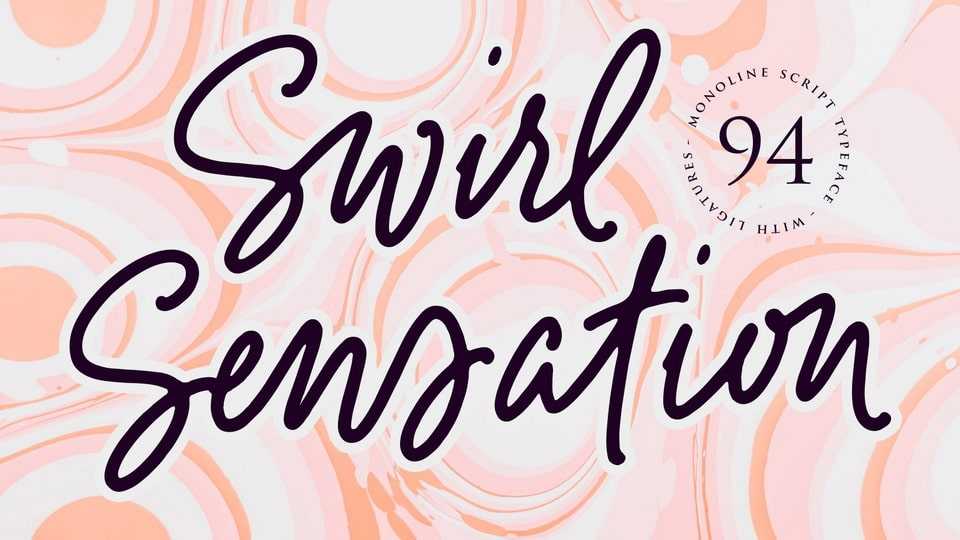
Download Swirl Sensations font, a handwritten typeface inspired by the feeling of the pen stroke. Swirl Sensations combined with the natural flow of handmade typefaces, this series is a lot of fun and can help bring your design to life.
Designer: Redy Studio